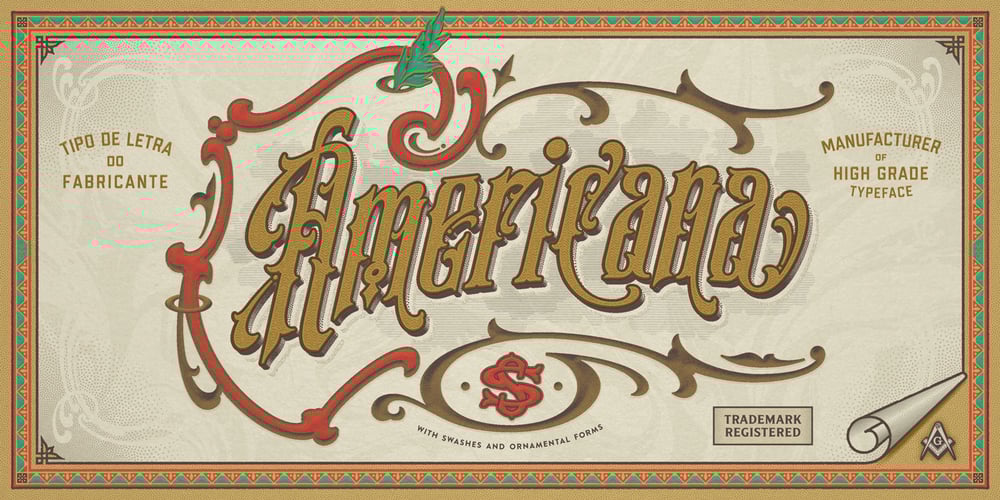
S&S Amberosa Font Family was designed by Gilang Purnama Jaya and published by Spencer & Sons Co.. S&S Amberosa contains 6 styles and family package options. Distinctively Americana with a touch of Arts & Crafts, Amberosa is a typographic gem from the late nineteenth century, this undulating and organic typeface is a versatile and refreshing alternative to many of the font designs on the market today. Recapture the elegance of traditional flourished sign writing and make and provide ideal lettering for period inspired design work such as posters, signage, labels and book covers. You’ll find ligatures, 400+ stylistic alternates in keeping with the spirit of this pretty, old-fashioned typeface.